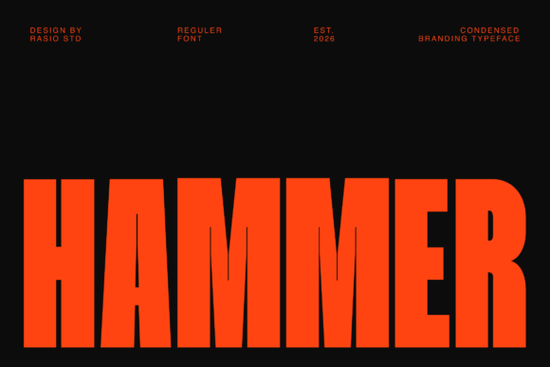
Hammer Font is a versatile sans serif typeface that stands out for its bold, compact, and tall design. It’s ideal for creating strong visual statements in a variety of projects. Whether you're working on a poster, branding system, or editorial layout, Hammer Font delivers clarity and impact without taking up too much space. This makes it a great choice for designers looking to maximize readability while maintaining a modern aesthetic.
Designed with efficiency in mind, Hammer Font’s condensed structure allows for more text in less space. This feature is especially useful when working with limited areas, such as streetwear graphics or sports visuals. Its clean lines and consistent weight make it easy to pair with other fonts, giving you flexibility in your design workflow. For those who want to experiment with different styles, Hammer Font can be a reliable base for both digital and print applications.
What Makes Hammer Font Stand Out?
One of the key strengths of Hammer Font is its ability to command attention without being overwhelming. The boldness of the letters ensures that it works well as a headline or title, while the compact design keeps it from feeling cluttered. This balance makes it suitable for a wide range of uses, from logos to packaging designs. Its versatility also means it can fit into many different creative contexts, whether you're designing for a small business or a personal project.
If you're looking for a font that combines style with practicality, Hammer Font is worth considering. It’s particularly effective when used in combination with other fonts that have contrasting characteristics. For example, pairing it with a softer script or a more traditional serif can create a dynamic and professional look. This adaptability makes it a valuable addition to any designer’s toolkit.
When to Use Hammer Font
Hammer Font is best suited for projects that require a strong visual presence. Headlines, posters, and branding systems are natural fits for this typeface. Its compact nature also makes it a good option for layouts where space is a concern, such as in magazine spreads or social media graphics. If you’re working on something that needs to grab attention quickly, Hammer Font can help you achieve that goal effectively.
For print-on-demand sellers, Hammer Font offers a reliable option for creating eye-catching designs that stand out on products like t-shirts, mugs, and stickers. Its bold style ensures that text remains legible even when scaled down, which is important for small-format prints. Small businesses can also benefit from using Hammer Font in their marketing materials, as it conveys professionalism and confidence.
When choosing a font, it’s important to consider how it will perform in different contexts. Hammer Font is a solid choice for anyone looking for a bold, readable, and efficient typeface. Whether you're a designer, crafter, or small business owner, this font can help you create more impactful designs with ease.